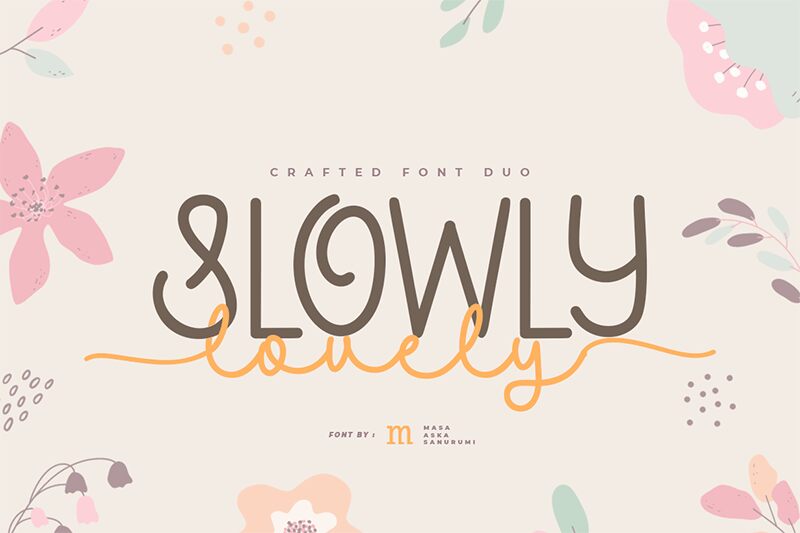
Embrace the charm of Slowly Lovely Script, a handwritten gem from the Slowly Lovely family, crafted by the talented Masa Aska Sanurumi.
With its semi-light weight and effortless elegance, this font duo captures the essence of personal touch in each curve and line. Ideal for Instagram captions, wedding invitations, or bespoke branding projects, Slowly Lovely Script transforms text into an intimate experience. Its distinct personality makes it a go-to choice for designers aiming to inject warmth and authenticity into their work.
Experience how Slowly Lovely Script elevates your creative vision with its blend of simplicity and contemporary style.